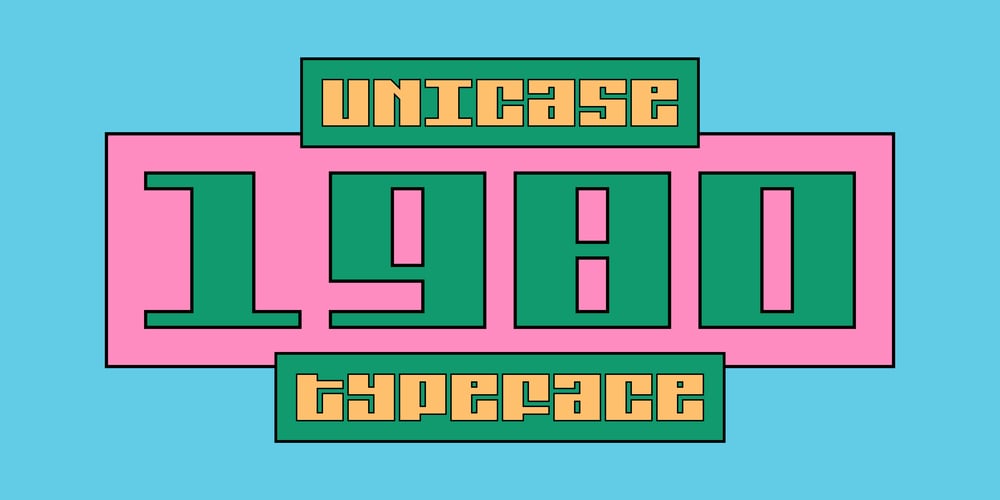
SK 1980 Unicase
SK 1980 Unicase font
SK 1980 Unicase Font Family was designed by Salih Kizilkaya and published by Salih Kizilkaya. SK 1980 Unicase contains 7 styles and family package options. SK 1980 Unicase is a font that emerged with a modern interpretation of the 80’s design concept. It was specially designed to create structural forms. Each character is the same size, so you can create structural designs without any difficulty.Includes 7 different versions and 2464 glyphs.